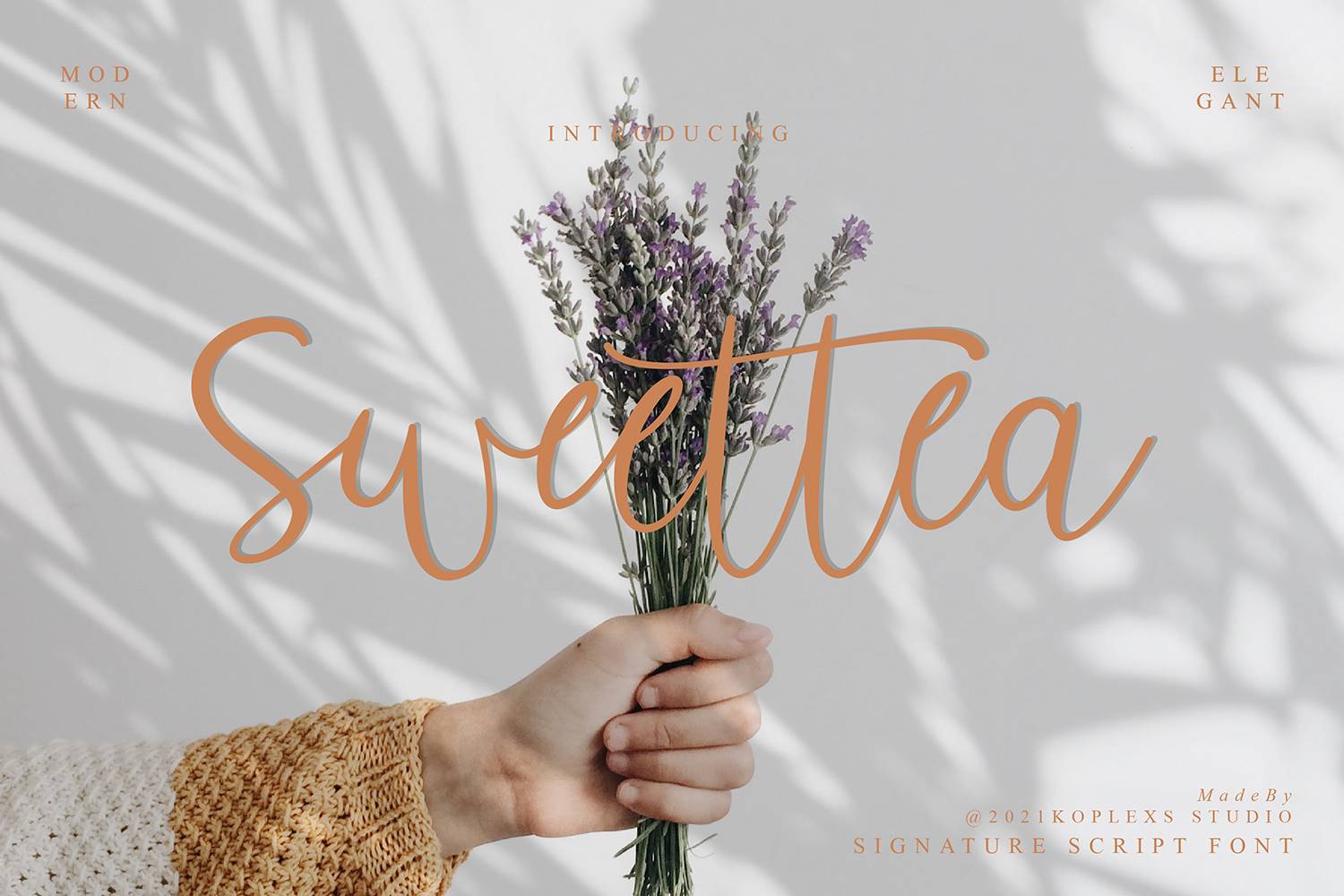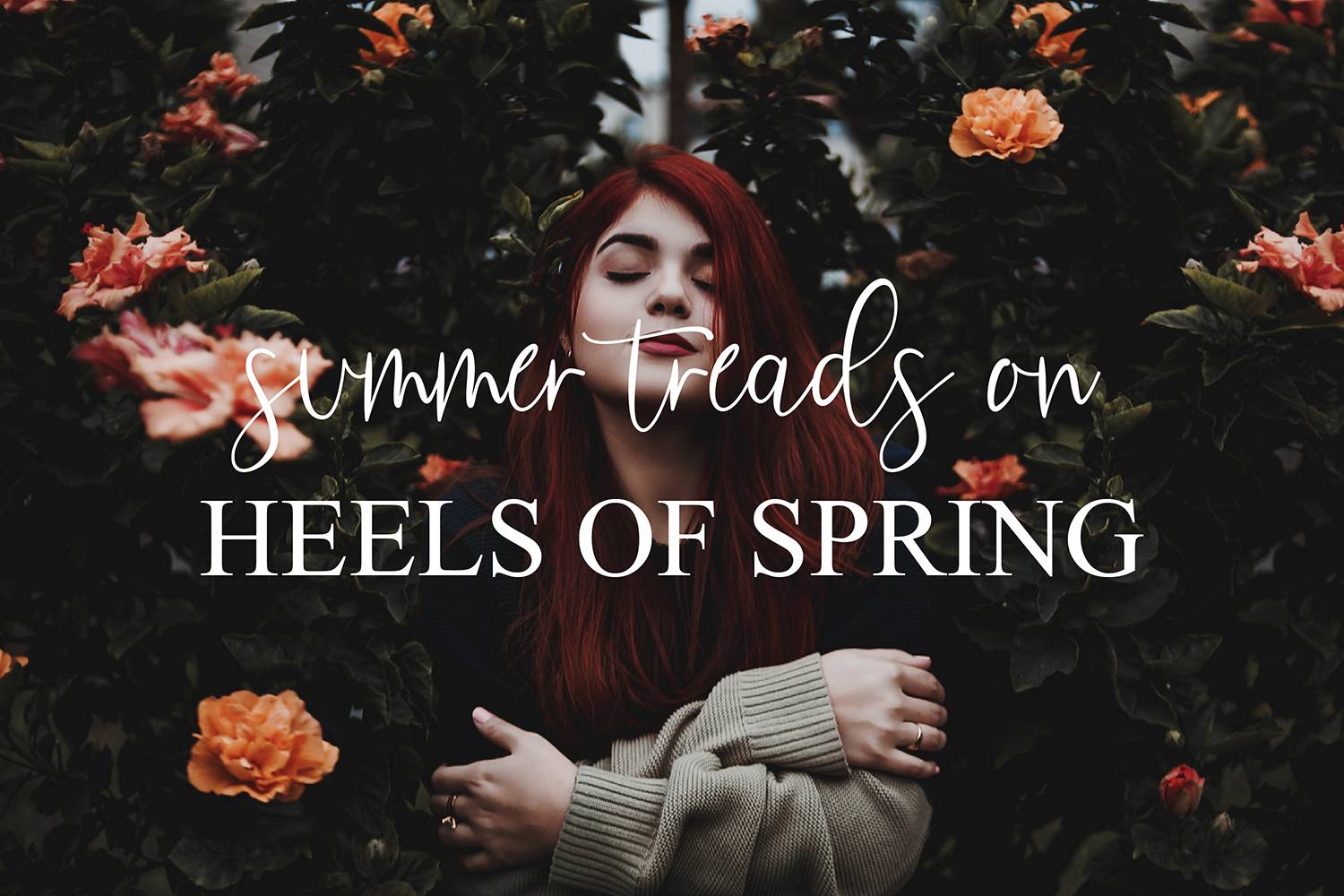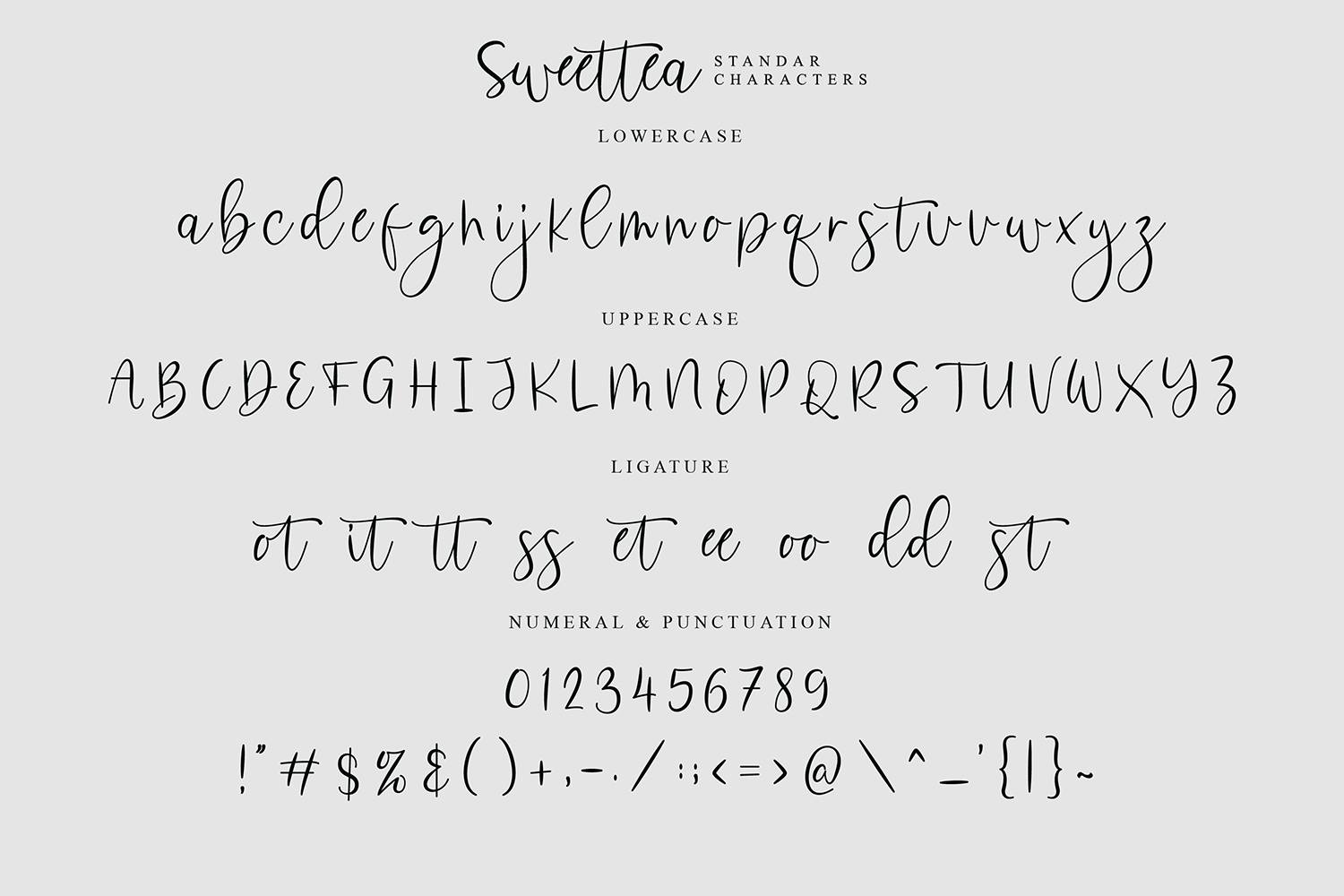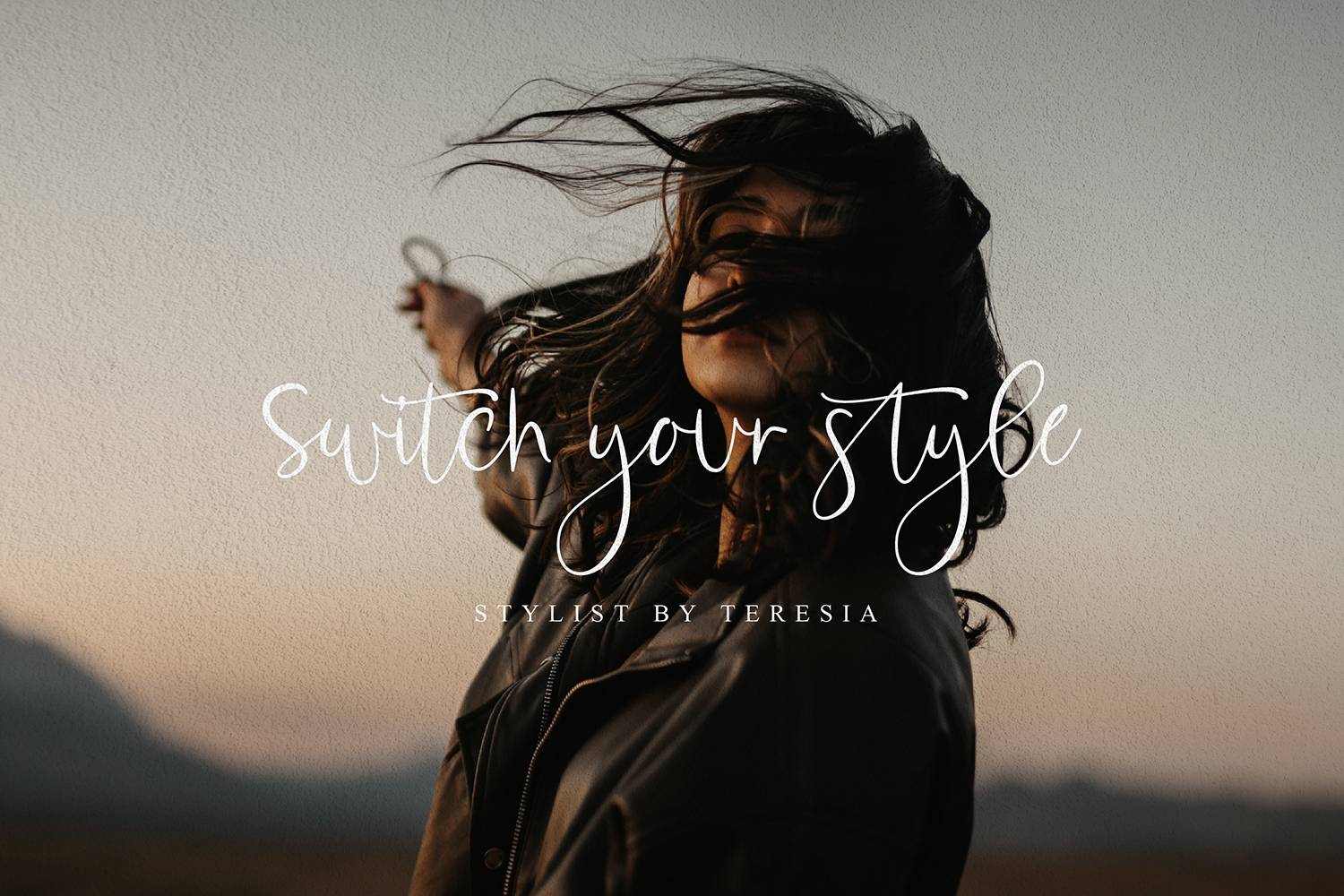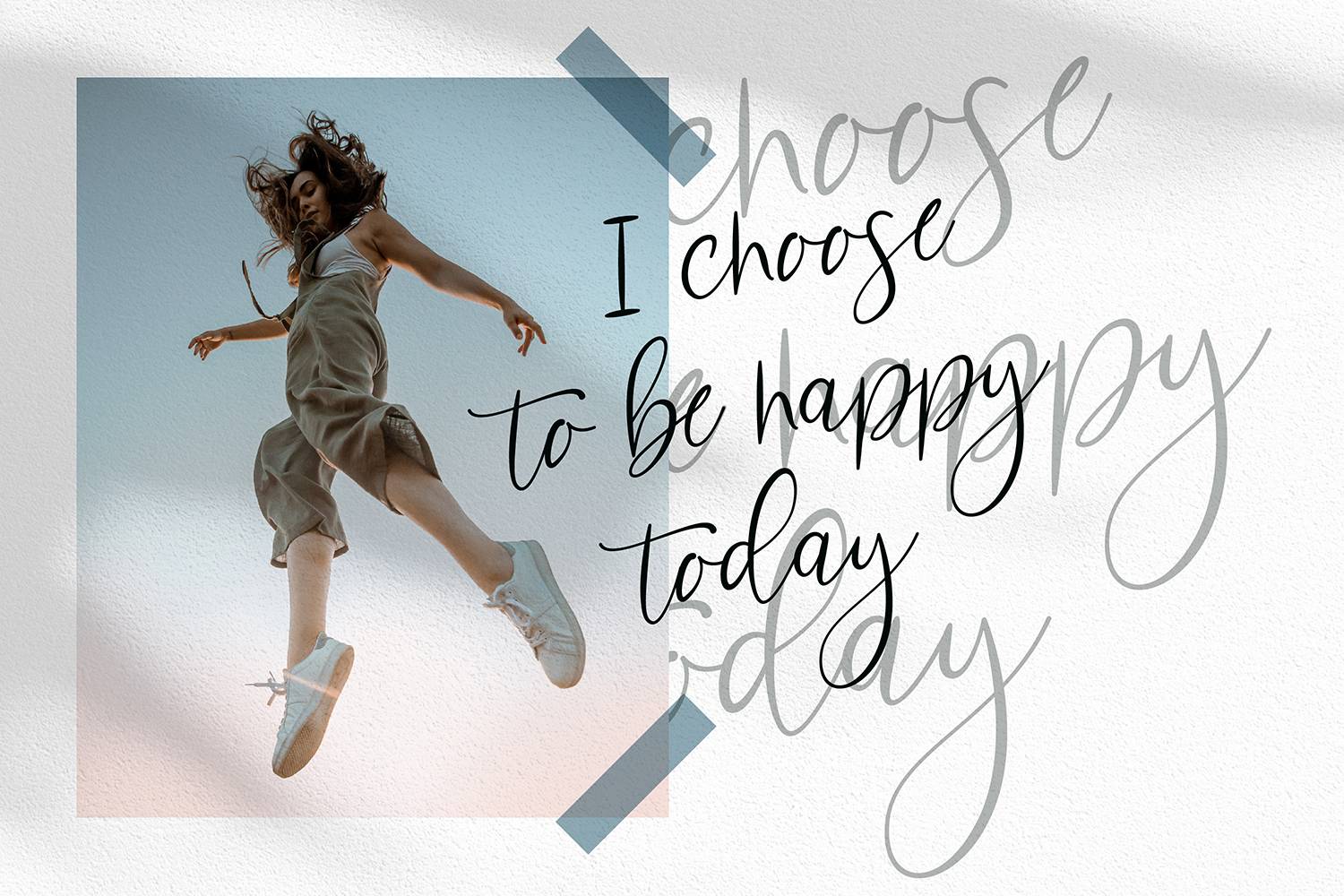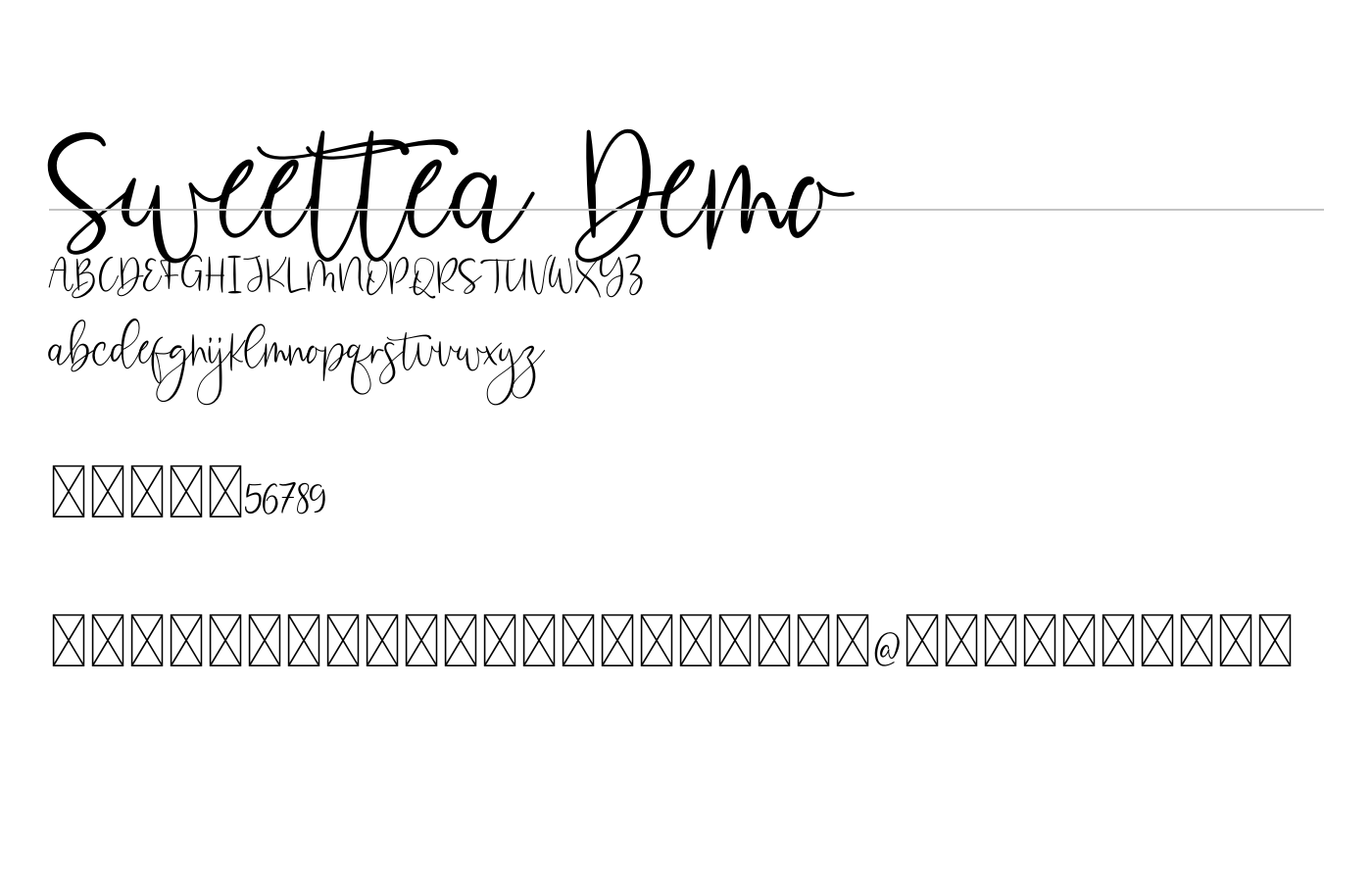
Sweettea is a delicate, handwritten script font with a soft, flowing style that captures a whimsical and elegant feel. Its slender strokes and graceful curves make it ideal for feminine, romantic, or creative branding, especially in invitations, logos, and boutique packaging. This font works best in display use where its charming personality can shine, adding a personal and inviting touch to any design.
Sweettea Font
About Sweettea Font
| Font family | Sweettea Font |
| Designer | Ahmad Muslimin |